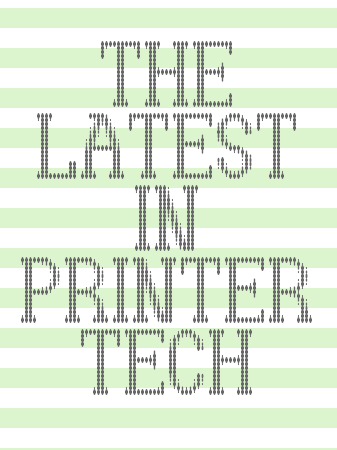
this has a nice vibration. smooth and cool. nice sample. i did one too :)
Very nice sample, ssaamm!
Great sample there! I guess this font doesn't just look like an old printer. Wayvee.
Very nice font, come out very well
and well design, Bravo!
The good: wonderful "blob" effect; some letters are just perfect (e.g. B,P,U,M,Z). The challenge: it appears, as if two different concepts were mixed together. Some letters don't really fit into the set (W,X, and maybe the Y). Some need fine tuning (N,V), and the C,O,Q looks a bit smaller/thinner than they should be. I know the limitations of this particular design, but I'm certain there is room for improvement here.
Overall, a great effect. Must say that I'm also not too keen on the V W X or Y.